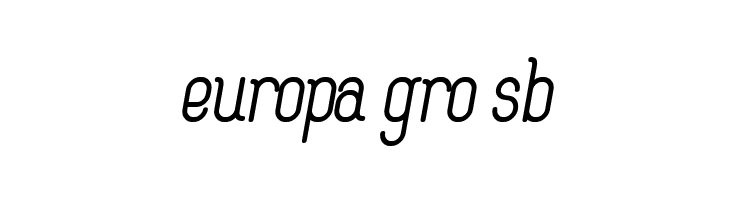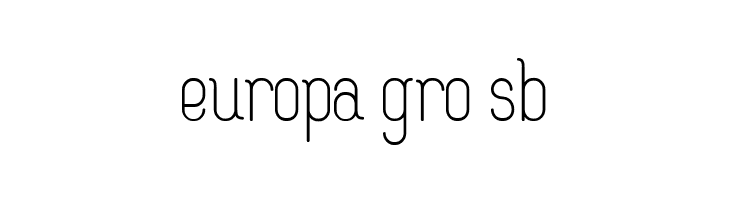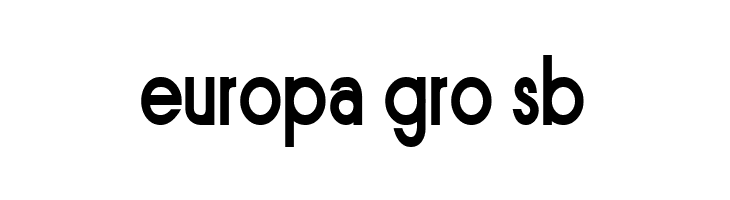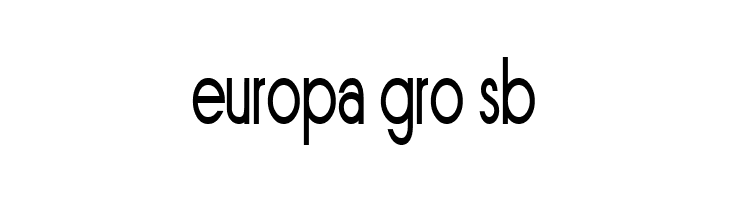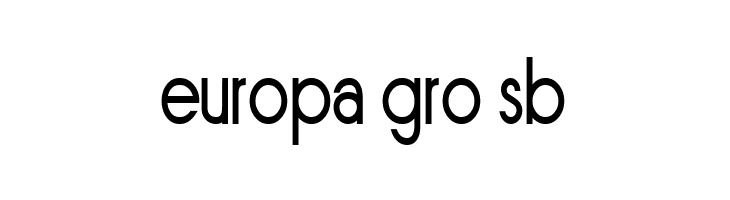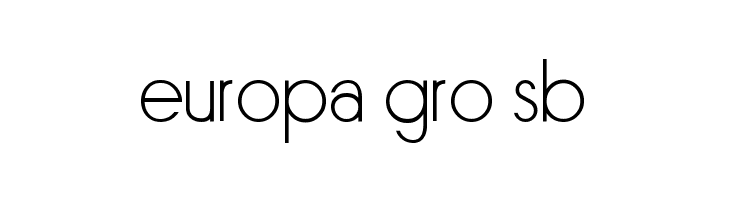
( Luc Mahler )
A bold, italicized, and modern font with a sleek, condensed style.
( Luc Mahler )
A sleek, modern italic font with elongated, slightly condensed characters.
( Luc Mahler )
A sleek, modern font with elongated, narrow characters and minimal contrast.
( Luc Mahler )
A bold, narrow font with a modern, geometric design.
( Luc Mahler )
A modern, condensed sans-serif font with a clean and streamlined appearance.
( Luc Mahler )
A modern, narrow sans-serif font with a sleek and professional appearance.
( Luc Mahler )
A sleek, modern italic font with clean lines and a dynamic appearance.
( Luc Mahler )
A clean, geometric typeface with thin lines and balanced spacing.
( Luc Mahler )
A bold, modern sans-serif font with clean lines and geometric structure.
( Luc Mahler )
A sleek, light, and italic font with a modern and elegant design.